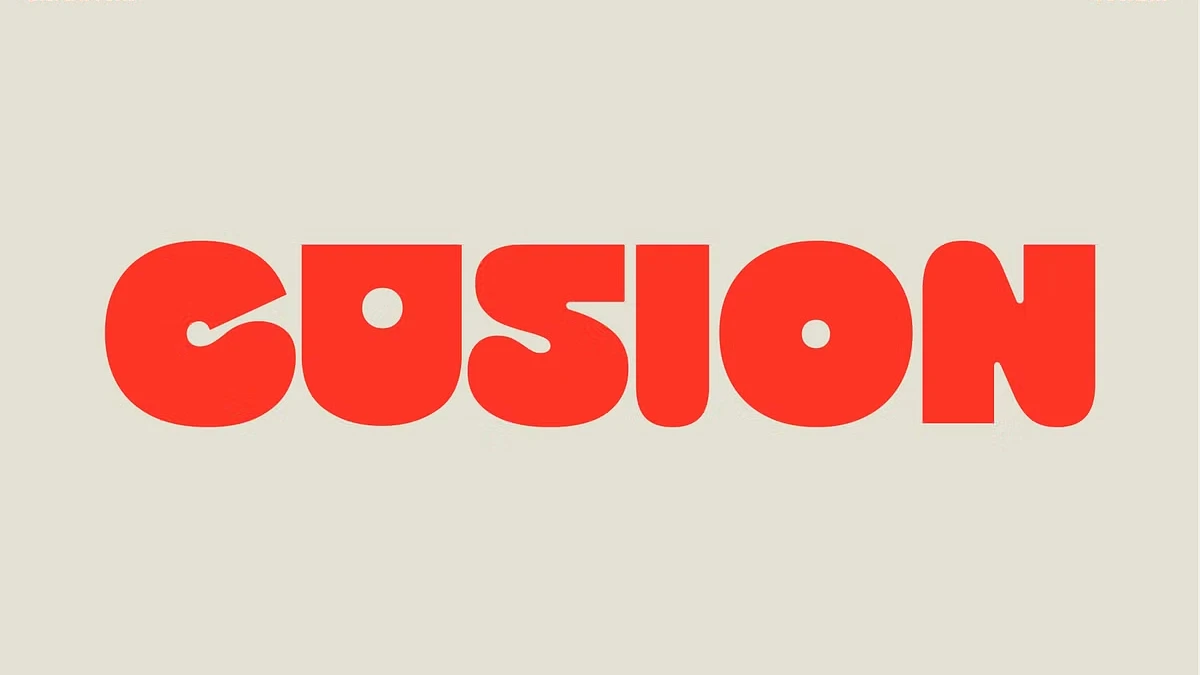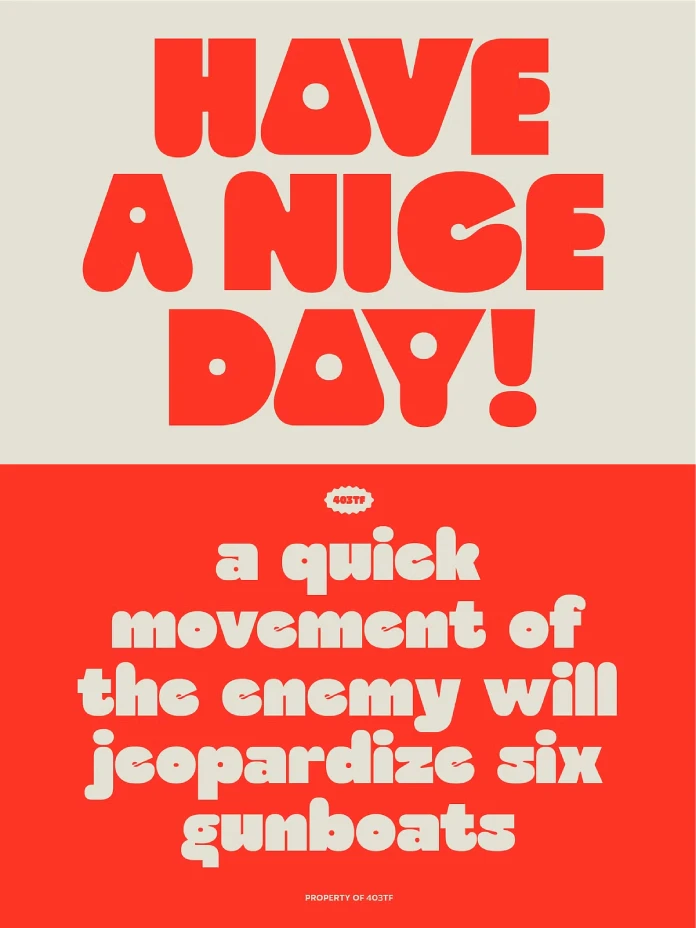
The 403 Cusion Typeface is the Soulful 70s Font Your Brand Needs Now.
In the dynamic world of design, the past continually reshapes the future. Today, a significant resurgence of 70s-inspired aesthetics is capturing the creative landscape. This revival brings with it a wave of warmth, personality, and unapologetic boldness. This trend is not just about fleeting nostalgia. Instead, it is a strategic move by brands and designers. They aim to connect with audiences on a more authentic, human level. Stepping into this vibrant arena is 403 Cusion, a display typeface from the innovative 403 Type Foundry. This font perfectly encapsulates the groovy, soulful spirit of the seventies. For any creator looking to infuse their work with a memorable, retro-futuristic edge, understanding the power of a font like 403 Cusion is essential.
The Philosophy Behind 403 Cusion’s Design
What makes a typeface truly resonate? It is the story and intention woven into its very curves. Consequently, 403 Cusion is a masterful example of design with a distinct point of view.
403 Cusion Typeface by 403 Type Foundry
Inspired by Comfort and Confidence
The creative minds at 403 Type Foundry drew inspiration from vintage sofas. They also looked at the confident typography of 70s advertising. The result is a font where each letterform feels “stuffed” and soft. The design deliberately eliminates harsh lines to cultivate a friendly and approachable feel. This unique design choice gives 403 Cusion an irresistibly tactile quality. Therefore, it feels less like a digital asset. It feels more like a comfortable, well-loved statement piece.
A Fusion of Retro and Futuristic
While its roots are firmly planted in the 70s, 403 Cusion is anything but dated. It embodies a retro-futuristic aesthetic that feels both nostalgic and refreshingly current. This duality is a hallmark of the broader retro-futurism trend. This trend combines vintage elements with sleek, modern design principles. It ultimately creates something entirely new. Think of it as the visual equivalent of listening to a classic funk record. You hear it on a brand-new, high-fidelity sound system. The soul is vintage, but the delivery is crystal clear and contemporary.
Deconstructing the Features of 403 Cusion
To fully appreciate the versatility of this typeface, a closer look at its technical specifications is necessary. These features are the building blocks that allow designers to unlock its full potential.
Comprehensive Character Set
403 Cusion is a robust tool for any design project. It includes a full set of uppercase and lowercase letters. These are available in two distinct styles: Regular and Slanted. Furthermore, this versatility is enhanced by an extensive collection of over 700 glyphs. It encompasses Latin support, accents, arrows, and mathematical symbols. Such a comprehensive character set ensures designers can maintain a consistent typographic voice. They can do this across a wide range of applications and languages, with support for up to 270 Latin-based languages.
Built for Maximum Impact
As a display font, 403 Cusion is engineered to grab attention. Its thick, groovy letterforms are designed for maximum visual impact. This makes it an ideal choice for headlines, logos, and any application where the typography needs to be a focal point. The bold, heavy nature of the font communicates confidence. It also makes a strong statement, which is a key function of effective display typography.
How to Wield the Power of 403 Cusion
Understanding the “why” behind 403 Cusion is one thing. Knowing “how” to use it effectively is what separates good design from great design. Indeed, this typeface is a versatile workhorse for a multitude of creative applications.
Crafting Unforgettable Brand Identities
In a crowded marketplace, a distinctive brand identity is invaluable. 403 Cusion is the ultimate choice for branding professionals. They can aim to craft an identity that feels both established and playfully modern. Its unique personality helps brands stand out. It also communicates a sense of warmth and confidence. Whether for a logo, packaging, or an entire visual system, this font creates an instant connection with the audience.
Making a Statement in Editorial and Advertising
The high-impact nature of 403 Cusion makes it a natural fit for editorial contexts. Consider its use for magazine covers and bold headlines. Similarly, in advertising, it can be used to create posters and social media graphics. These graphics will stop viewers in their tracks. Its inherent nostalgia can evoke positive emotions. Simultaneously, it creates a sense of familiarity, while its modern edge keeps it from feeling stale.
Elevating Packaging and Merchandise
For product packaging and apparel, 403 Cusion offers immediate shelf appeal. It creates a look that is both nostalgic and fresh. This makes products feel both timeless and on-trend. Imagine it on a record sleeve, a t-shirt, or the label of a craft beverage. In each case, the font adds a layer of personality and storytelling.
The Minds Behind the Font: 403 Type Foundry
A typeface is often a reflection of its creators. 403 Type Foundry, also known as 403TF, is an Indonesian-based creative powerhouse. The foundry specializes in bold, high-impact typography. Their philosophy is rooted in transforming the art of typography. They make it a powerful tool for designers, marketers, and other creative professionals. The foundry’s name itself tells a story of overcoming creative blocks. The name “403” references the “forbidden error” on the internet. It symbolizes a barrier they broke through to establish their unique identity. With a focus on modern, versatile, and meticulously crafted typefaces, 403 Type Foundry consistently delivers exceptional fonts. Their work blends form and function, empowering designers to create unforgettable visual identities.
403 Cusion typeface is an attitude, a statement, and a powerful font for visual storytelling. By embracing the soulful energy of the 70s, 403 Type Foundry has created a typeface that is not only timely but also timeless. For any designer looking to infuse their work with personality and impact, 403 Cusion is a choice that is sure to be seen and remembered.